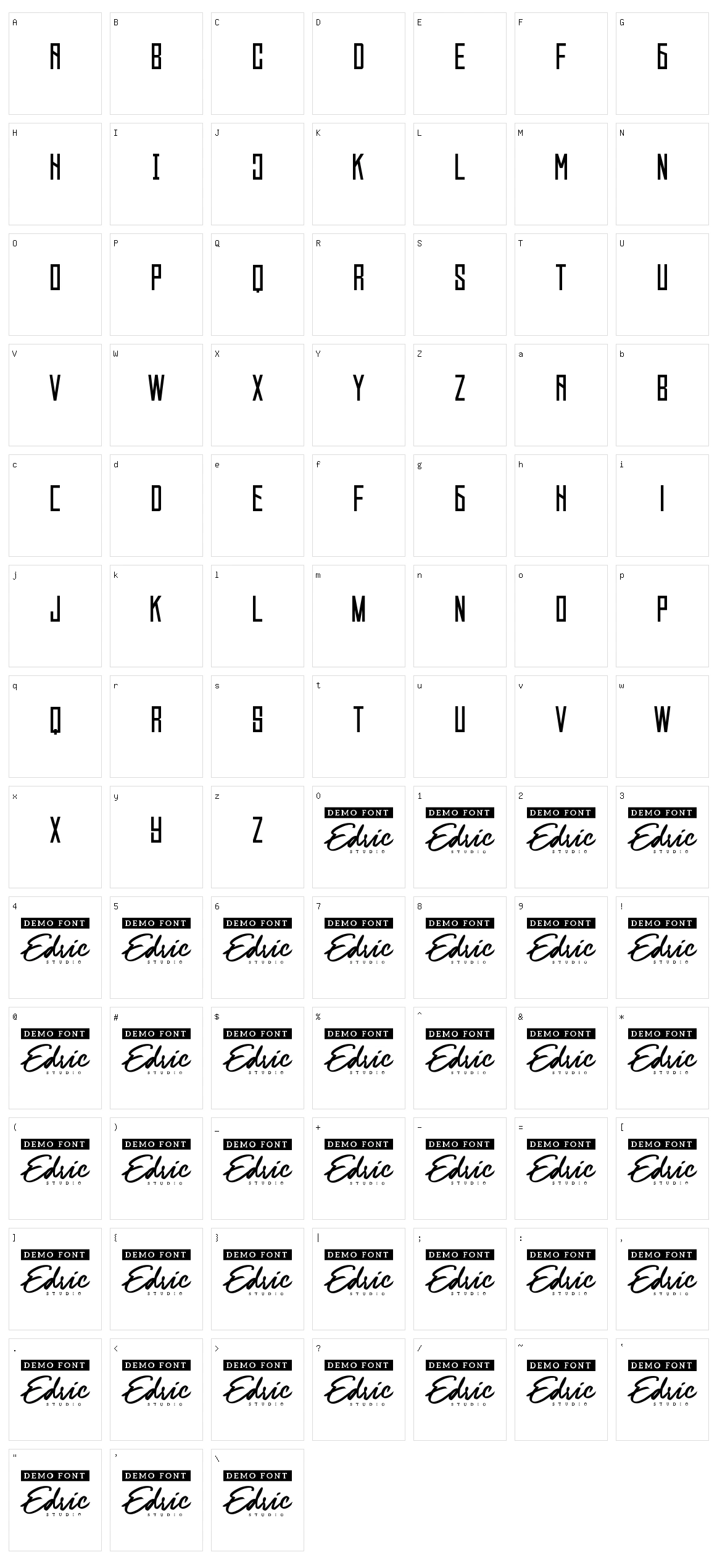
Lastborn
Designed by: Edric Studio
Description: The free font Lastborn is carefully designed by Edric Studio, showcasing a thoughtful balance of creativity and usability and belongs to the Techno font family. When you download the ZIP file, it contains only 54.52 KB of font files, making it lightweight and quick to download. Please review the license details below to understand permitted usage and distribution rights. If license information is not available, we recommend using this font for personal projects only or contacting the author directly for commercial usage permissions.